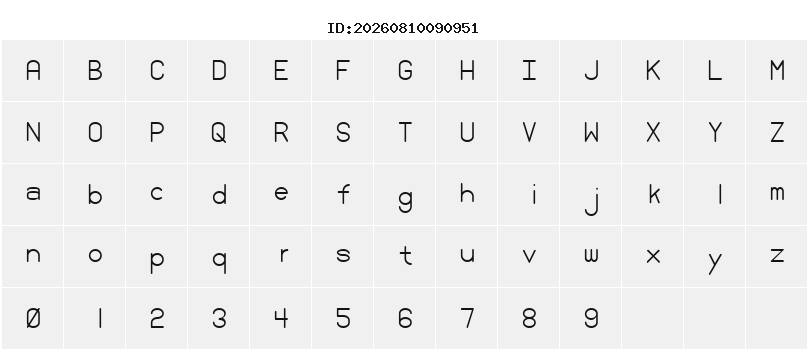
• Font Name: PCPlus 437 TrueType
About PCPlus 437 TrueType.ttf
PCPlus 437 TrueType.ttf is a modern, elegant sans-serif font designed for ultimate readability and visual harmony. Perfect for branding, headlines, web design, and print materials.